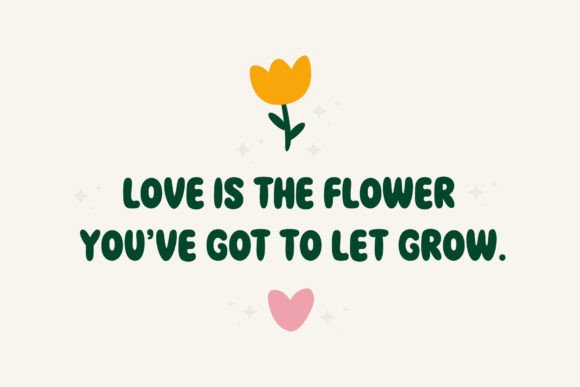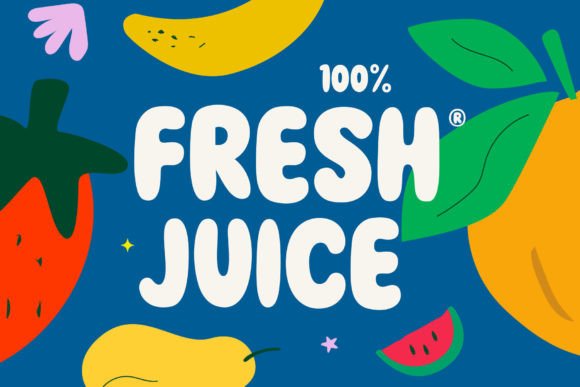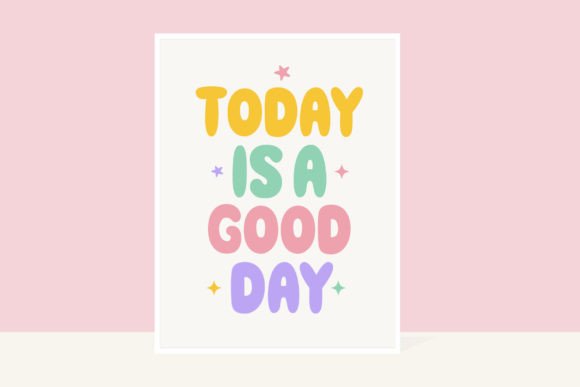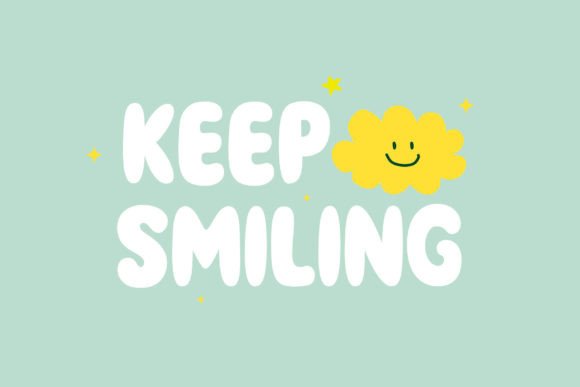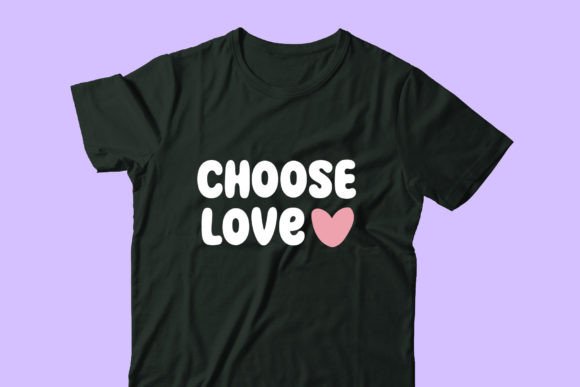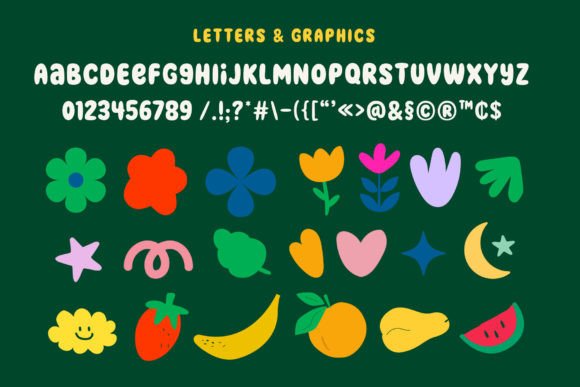
Meet Your New Favorite Font: Buble Flowr Font
Have you ever stumbled upon a font that makes you feel like a kid in a candy store? For designers, it’s not uncommon to experience that “aha” moment when we discover a font that perfectly captures the essence of our creative vision. It’s that feeling of excitement and joy that we’re about to share with you, courtesy of the Buble Flowr Font.
This cool, friendly, and fun display font is designed to bring a smile to your face, whether you’re using it for crafts, digital design, presentations, or making greeting cards. The Buble Flowr Font has the potential to become your go-to font for any occasion, and its versatility makes it a valuable addition to any designer’s toolkit.
Bubble Flowr Font Key Features
- Unique Characteristics: The Bubble Flowr Font features a playful, handwritten style with flowing curves and organic shapes, perfect for creating a whimsical and creative atmosphere.
Bubble Flowr Font Review
I recently had the chance to work with the Bubble Flowr font, and I must say it’s a unique and eye-catching addition to any design project. Here are some of the things that I think work well with this font: ✨
- Uniqueness: Bubble Flowr stands out from the usual sans-serif or serif fonts, offering a playful and whimsical feel that can be perfect for certain projects.
- Customization: The font comes in various weights and styles, giving designers a good amount of flexibility when it comes to adjusting the typography to fit their needs.
- Fun for illustrations: Bubble Flowr can add a lot of personality to illustrations and graphics, making it perfect for children’s books, educational materials, and more.
However, there are also some limitations to consider: ⚠️
- Limited legibility: In certain cases, the font’s unique shape can make it hard to read, especially at smaller sizes.
- Not suitable for body text: Due to its playful nature, Bubble Flowr might not be the best choice for large blocks of text, as it can be tiring to read.
Overall, I think Bubble Flowr is a great addition to a designer’s toolkit, but it’s essential to use it judiciously and in the right context. When used correctly, it can add a lot of charm and personality to a design project.
Bubble Flowr Font Practical Application Guide
Experiment with different font sizes and colors to create a unique look. Use the font’s irregular shapes to create a custom texture or gradient effect. Combine the font with other playful elements, such as icons or graphics, to add visual interest to your design.
The Bubble Flowr Font is perfect for creating playful and whimsical designs, such as children’s books, party invitations, or social media graphics. It’s also great for adding a touch of personality to business presentations, websites, or marketing materials.